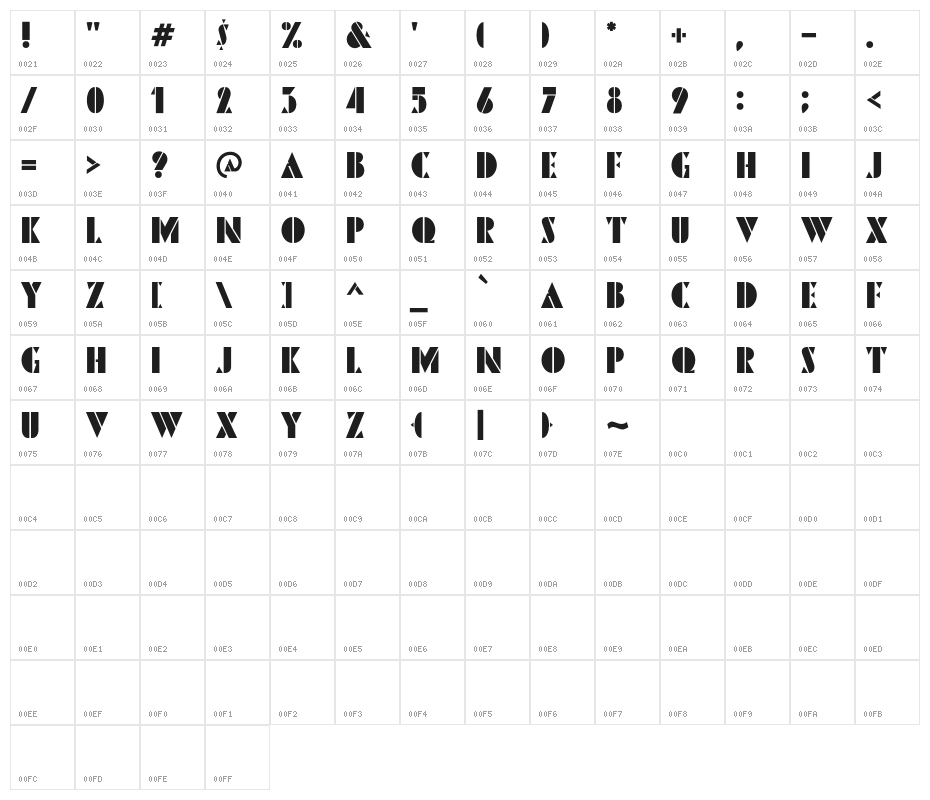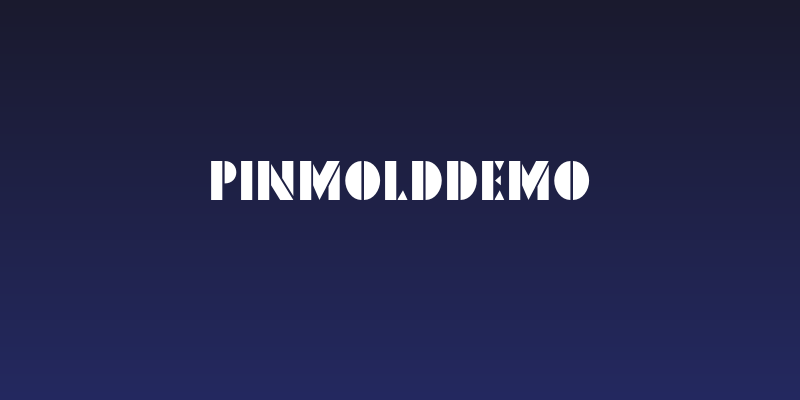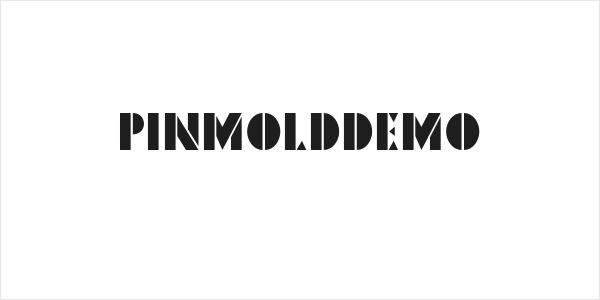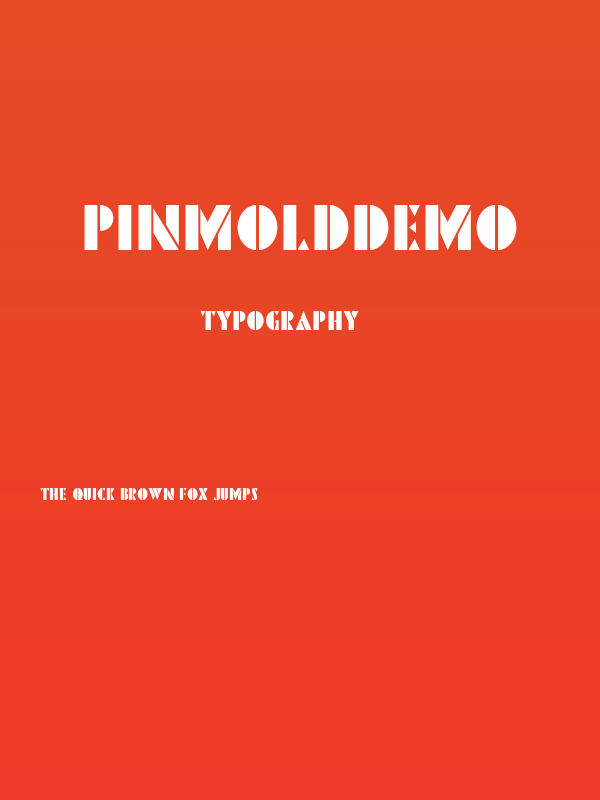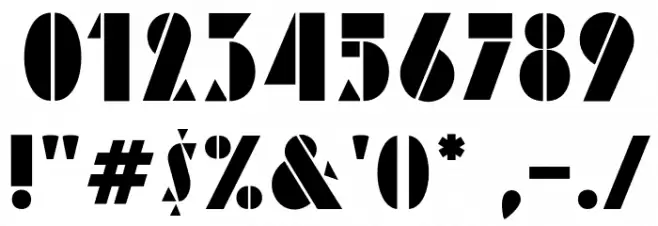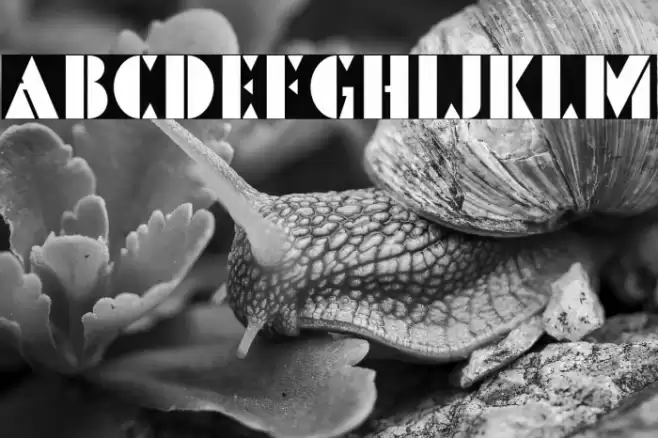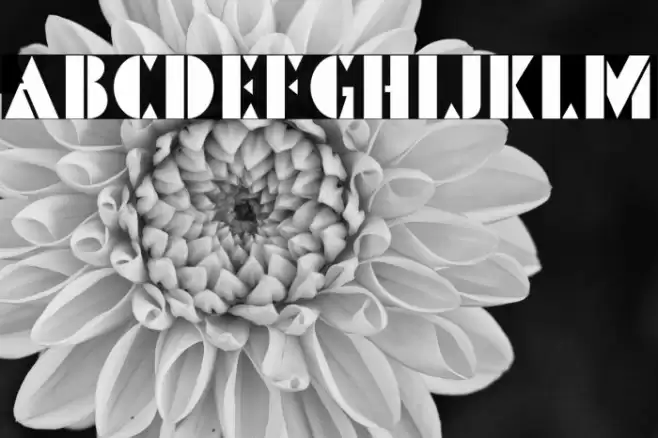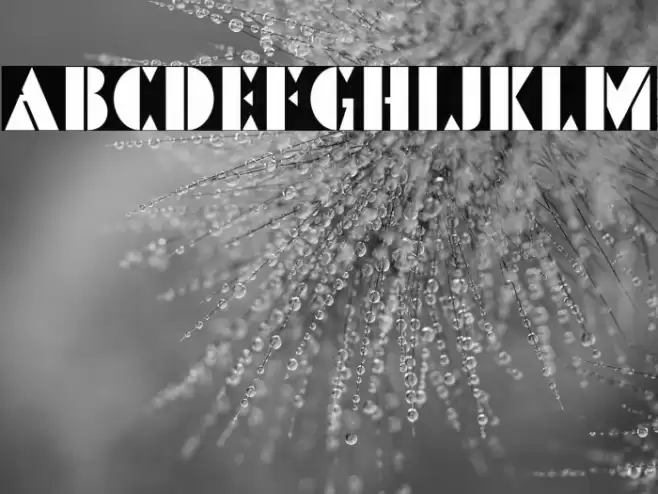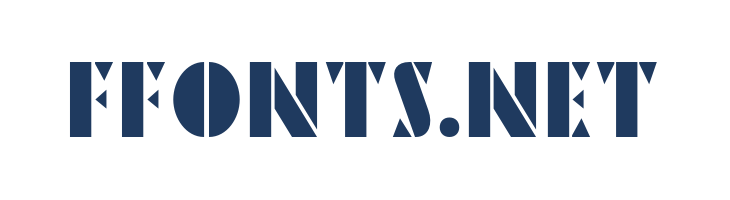
PinmoldDEMO Font
PinmoldDEMO Description
This font features a bold and striking geometric design with high contrast between thick and thin strokes. The characters are constructed with sharp angles and distinct cutouts, giving them a modern and edgy appearance. The uppercase and lowercase letters share a consistent style, emphasizing uniformity and cohesion. The numerals and special characters maintain the same bold and angular aesthetic, making them stand out prominently. This font is designed to capture attention and convey a sense of strength and modernity.
| Proposed Projects | Ideal for branding, poster design, and headlines that require a modern and impactful look. |